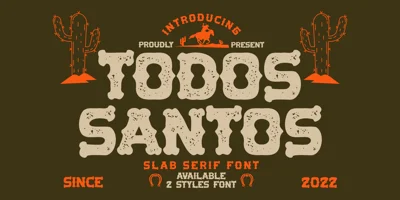
Todos Santos Font
Todos Santos Font is perfect for Mexican restaurant branding, Day of the Dead celebrations, Latin cultural festivals, authentic Mexican cuisine packaging, spiritual ceremony materials, cultural heritage projects, traditional art exhibitions, Latin music promotions, religious community communications, and vibrant cultural event advertising.
What makes Todos Santos Font exciting is its sacred cultural authenticity that perfectly captures the spiritual reverence and vibrant celebration found in Mexican Day of the Dead traditions and Latin American cultural heritage. This typeface features distinctive letterforms with ceremonial proportions and sacred details that evoke the profound connection between life and death, memory and celebration that defines this beautiful cultural tradition. The font's spiritual personality and cultural authenticity make it ideal for brands seeking to honor Mexican heritage, convey reverence, and the meaningful celebration that comes from honoring ancestors and embracing life's sacred cycles.
Todos Santos Font family includes ceremonial weight variations and cultural alternatives that enhance its sacred appeal while providing design flexibility for cultural and spiritual applications. The font features traditional ligatures, spiritual ornaments, and ceremonial character variations that create authentic Day of the Dead atmosphere for cultural and heritage branding.
Cultural organizations and authentic Mexican brands consistently choose Todos Santos Font for projects requiring genuine cultural appeal and spiritual credibility. The font's sacred character excels in applications honoring Mexican traditions, celebrating cultural heritage, and connecting with Latino communities who appreciate authentic cultural representation. Whether you're designing for cultural festivals, Mexican cuisine, or heritage celebrations, this meaningful typeface delivers the cultural authenticity and spiritual reverence that resonates with audiences seeking genuine connection to Mexican traditions and the beautiful celebration of life, death, and ancestral memory that defines Día de los Muertos.